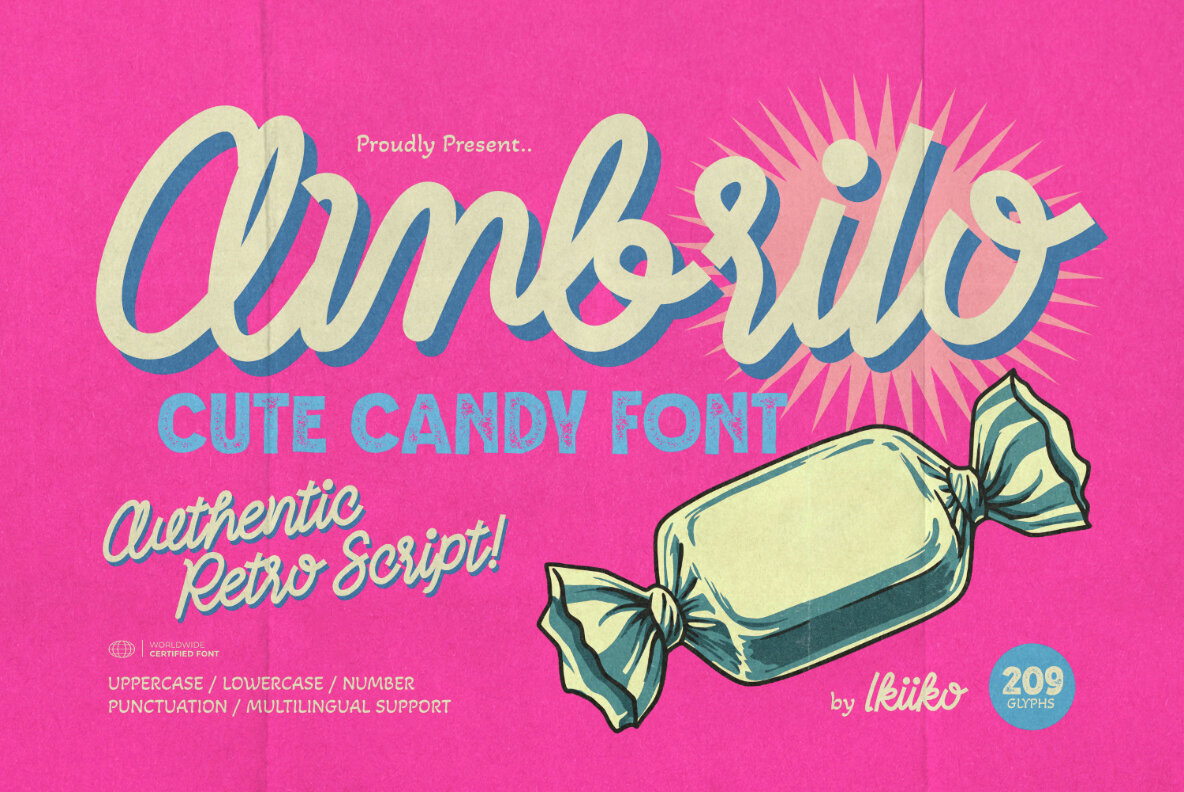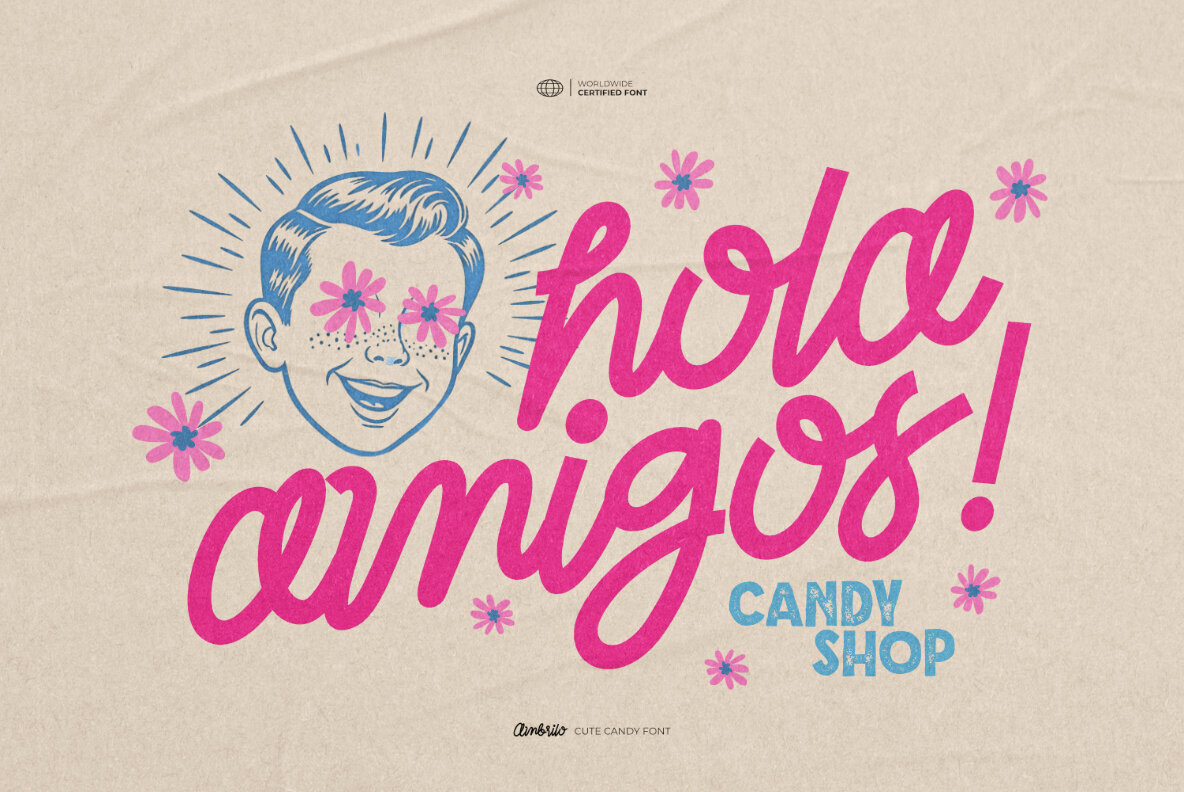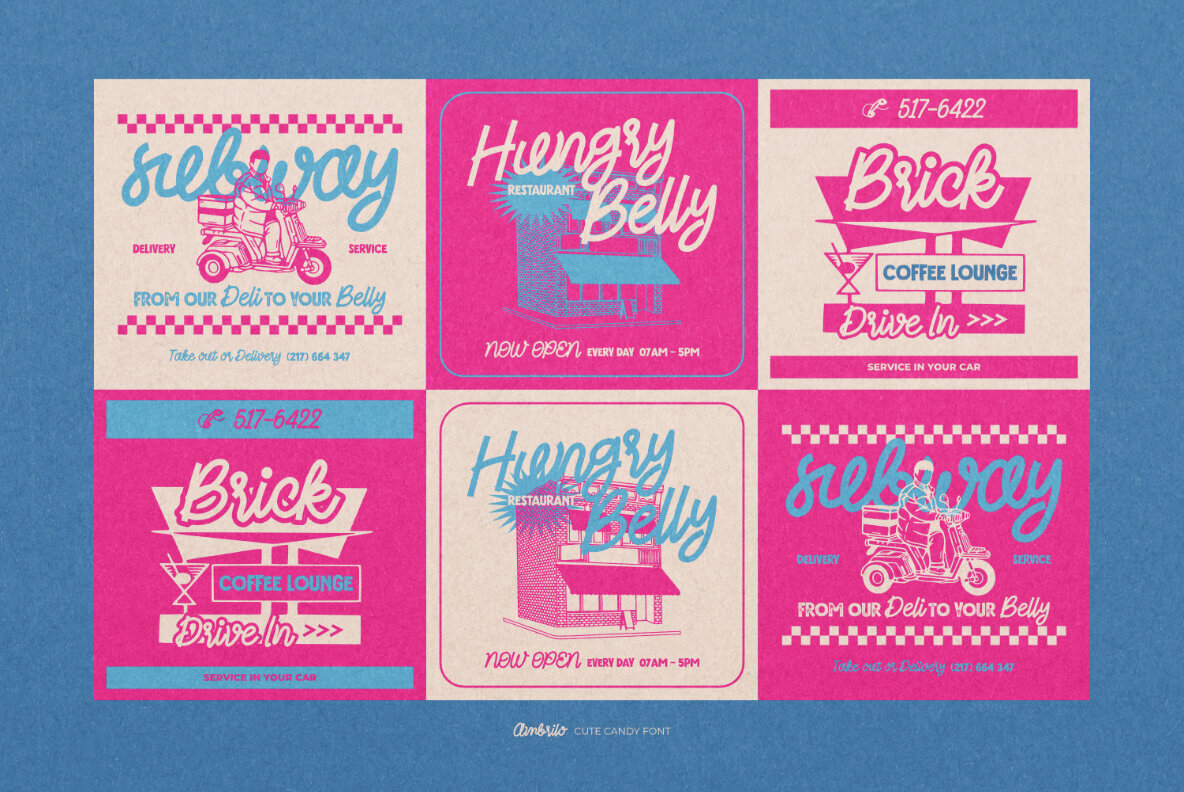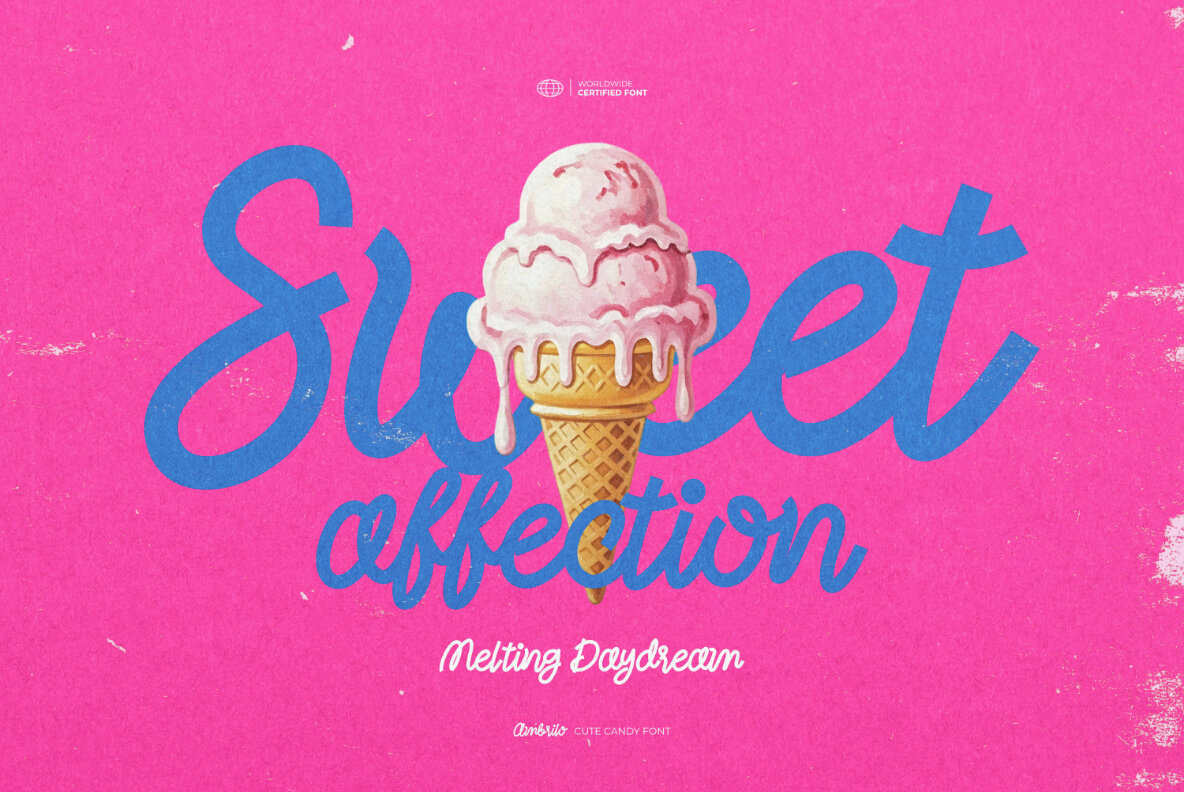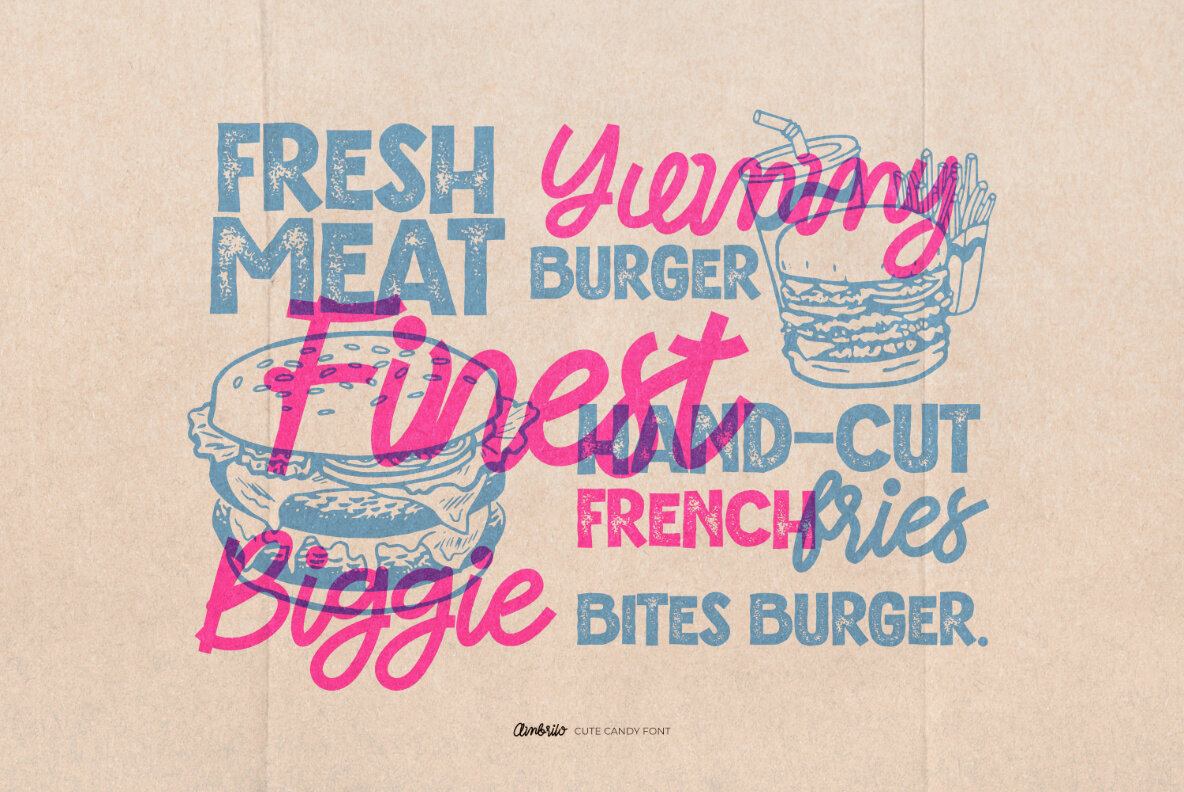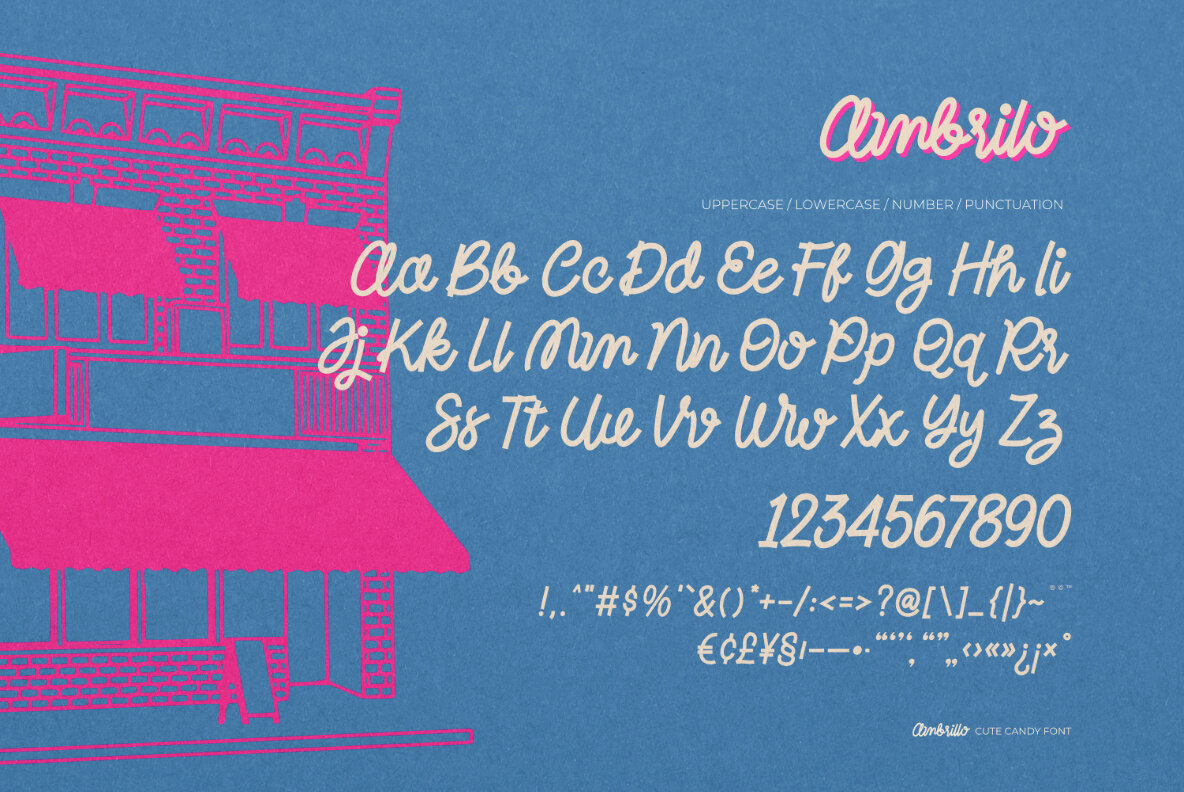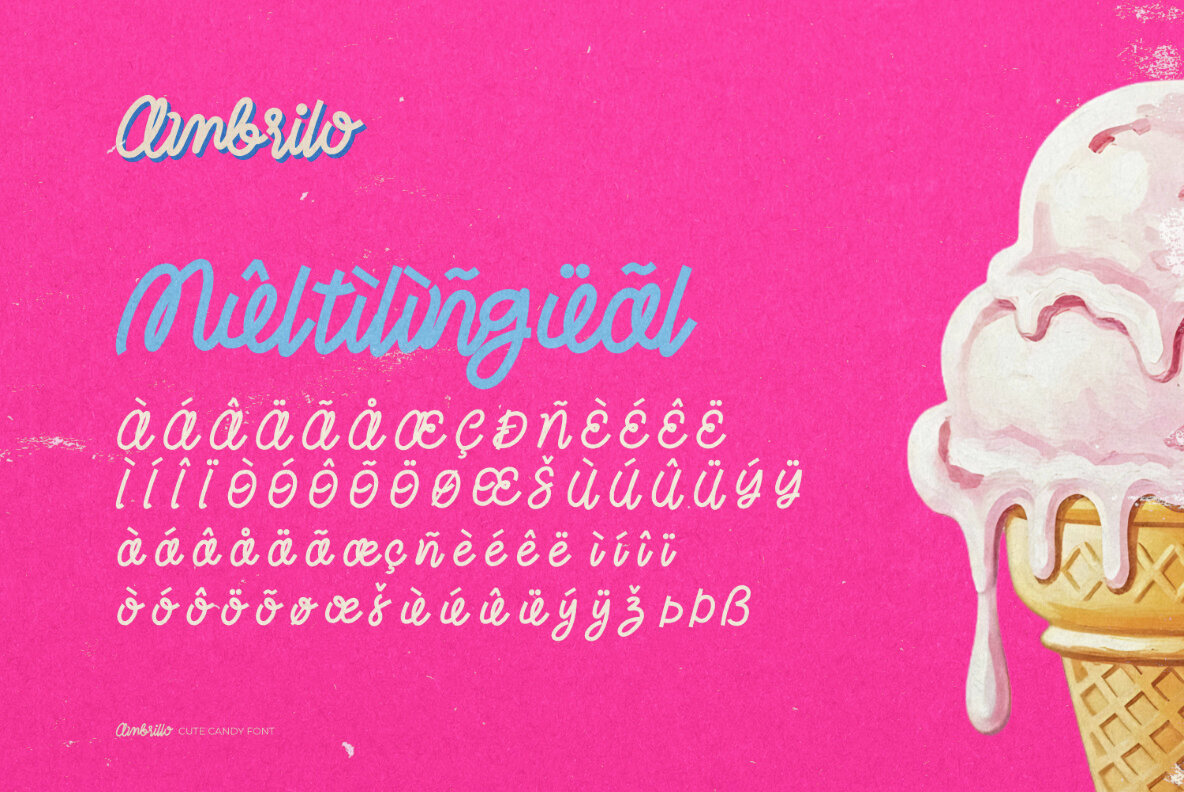
Ambrilo Font
Ambrilo
Ambrilo offers a delightful fusion of playful charm and retro elegance. This unique typeface draws inspiration from bubblegum shops, vintage candy advertisements, and handwritten notes. The result is a smooth yet fancy monoline design that exudes a hand-drawn essence. Ideal for projects seeking a touch of joy and sweetness, Ambrilo is sure to enhance your creative endeavors. With its retro script and candy-like strokes, Ambrilo infuses personality into various applications, from branding and packaging to social media and children's illustrations. The font serves as a mood board of sweetness, elegantly wrapped in stylish lettering.Ambrilo: A Whimsical Candy Font